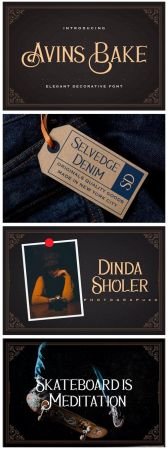
Avins Bake is a beautiful and modern serif font. Fall in love with its incredibly distinct and timeless style and use it to create spectacular designs!